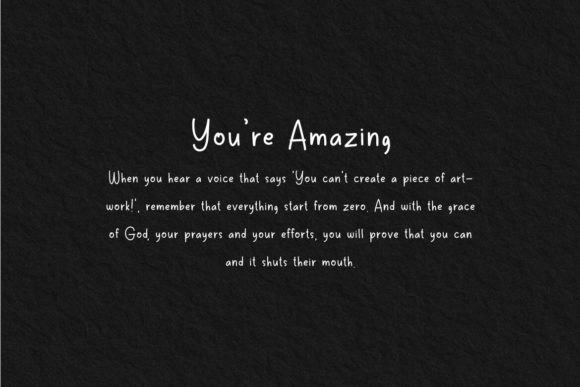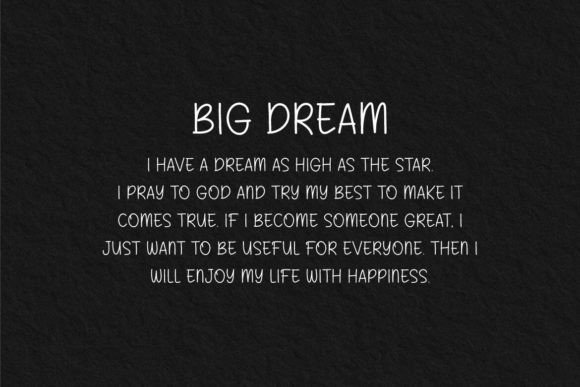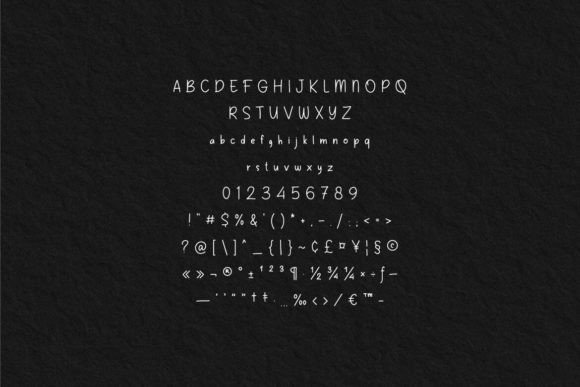
Discover the Charm of Black Note Font: Elevate Your Designs with a Personal Touch
In the world of typography, fonts play a crucial role in conveying messages, evoking emotions, and adding personality to designs. Among the numerous font styles available, the Black Note font stands out for its unique, small handwritten aesthetic. This versatile font is perfect for designers and crafters looking to add a personal touch to their projects. In this article, we’ll explore the features, uses, and benefits of the Black Note font, and how it can elevate your designs to the next level.
What is Black Note Font?
Black Note is a small handwritten font, characterized by its informal, cursive style. Its distinctive appearance makes it an excellent choice for designs that require a personal, human touch. The font’s compact size and elegant flow make it perfect for use in a variety of applications, from comic books and posters to social media content and logos.
Features of Black Note Font
The Black Note font boasts several features that make it an attractive option for designers:
- Handwritten style: Black Note’s handwritten aesthetic gives it a unique, organic feel that sets it apart from more formal fonts.
- Small and compact: The font’s small size makes it ideal for use in designs where space is limited, such as in comic books, posters, and flyers.
- Versatile: Black Note can be used in a wide range of applications, from digital content to print materials.
- Elegant flow: The font’s cursive style gives it a smooth, flowing appearance that adds a touch of sophistication to designs.
Uses of Black Note Font
The versatility of Black Note font makes it suitable for use in various projects, including:
- Comic books and graphic novels: Add a personal touch to your comic book stories with Black Note’s unique, handwritten style.
- Posters and flyers: Use Black Note to create eye-catching posters and flyers that grab attention and convey your message.
- School projects: Black Note is perfect for school projects, such as presentations, reports, and posters, that require a personal touch.
- Book titles and covers: Add a touch of elegance to your book titles and covers with Black Note’s cursive style.
- Advertisements and marketing materials: Use Black Note to create engaging advertisements and marketing materials that stand out from the crowd.
- Social media content: Add a personal touch to your social media content, such as Instagram posts and Facebook updates, with Black Note’s unique style.
- Logos and branding: Black Note can be used to create distinctive logos and branding materials that reflect your brand’s personality.
Benefits of Using Black Note Font
Using Black Note font in your designs offers several benefits:
- Unique aesthetic: Black Note’s handwritten style gives your designs a distinctive, one-of-a-kind look.
- Emotional connection: The font’s personal, cursive style helps create an emotional connection with your audience.
- Versatility: Black Note can be used in a wide range of applications, making it a valuable addition to your font collection.
- Ease of use: The font’s compact size and elegant flow make it easy to use in various designs.
In conclusion, the Black Note font is a versatile and charming addition to any design project. Its unique, handwritten style and compact size make it perfect for use in a variety of applications, from comic books and posters to social media content and logos. With its elegant flow and distinctive aesthetic, Black Note font is sure to elevate your designs and add a personal touch that sets them apart. Whether you’re a designer, crafter, or DIY enthusiast, Black Note font is a valuable resource to have in your toolkit.
So why not give Black Note font a try? Explore its features, experiment with its uses, and discover the benefits of using this charming font in your designs. With Black Note, you can add a touch of personality and elegance to your projects, and take your designs to the next level.